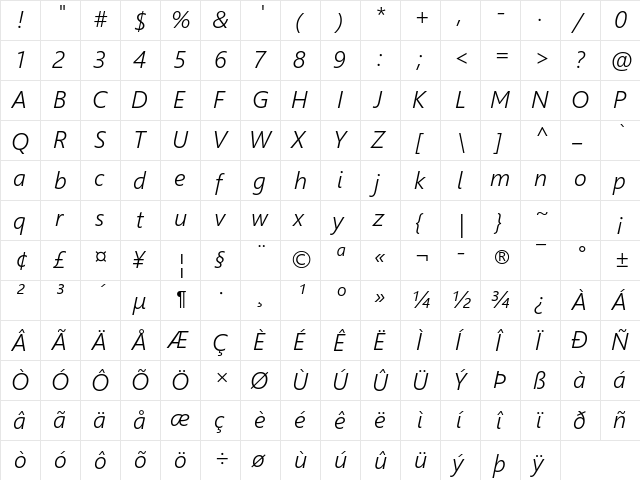
Segoe UI Semilight Italic
Design Context for Segoe UI Semilight Typeface
Segoe UI Semilight is a composed and adaptable typeface that performs quietly and consistently across a wide range of design contexts. Its italic angle brings a sense of urgency and motion to the letterforms. The delicate stroke weight brings airiness and refinement to layouts.
Pro Tip: Try Segoe UI Semilight for annotation and caption copy alongside an upright companion — the contrast in angle creates a dynamic but ordered typographic system.